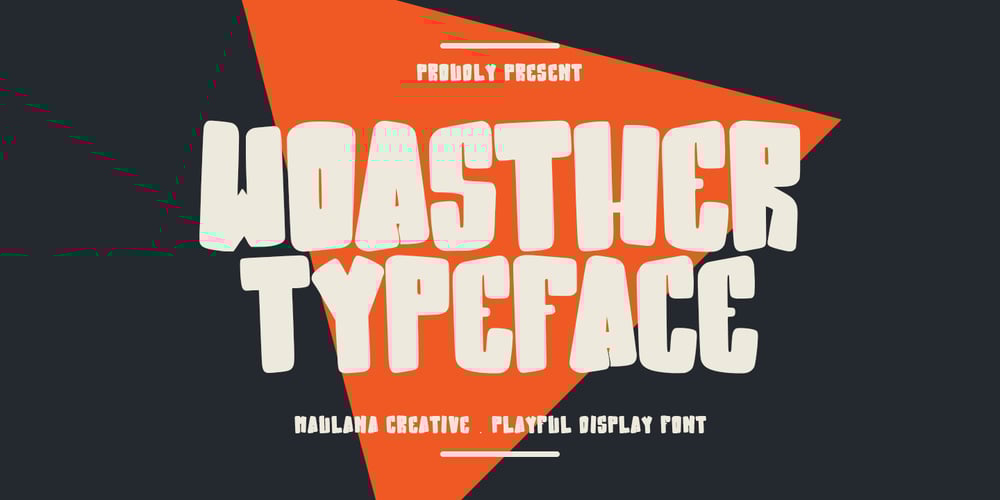
MC Woasther Font Family was designed by Gilang Maulana and published by Maulana Creative. MC Woasther contains 1 styles and family package options. Woasther typeface playful display font. Bold stroke, fun character with a bit of ligatures and alternates. To give you an extra creative work. Woasther typeface playful display font support multilingual more than 100+ language. This font is good for logo design, Social media, Movie Titles, Books Titles, a short text even a long text letter and good for your secondary text font with script or serif. Make a stunning work with Woasther typeface playful display font.Cheers,Maulana Creative